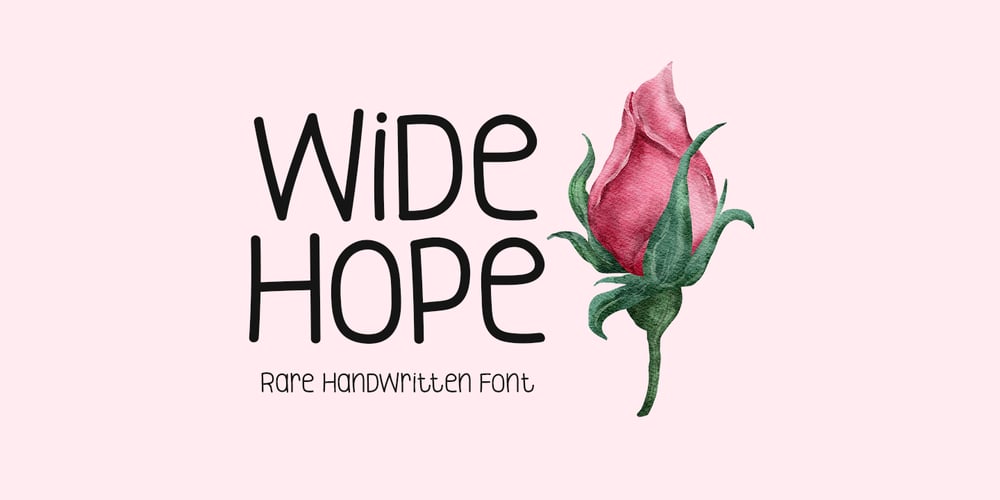
Wide Hope Font Family was designed by Md Shohail Bhuian and published by Seemly Fonts. Wide Hope contains 1 styles and family package options. Wide Hope is an unparalleled handwritten font that brings a touch of elegance and uniqueness to any project. Its versatility allows it to seamlessly blend with a vast array of creative endeavors, ensuring that your ideas not only stand out but also leave a lasting impression